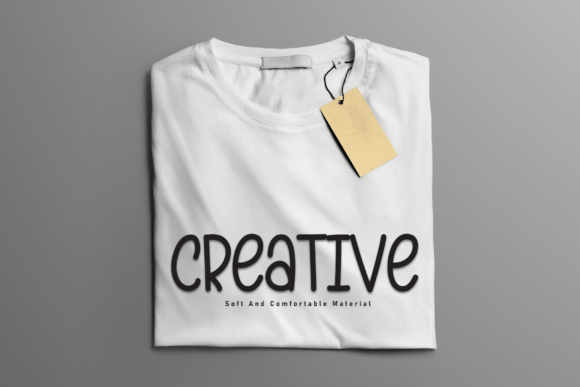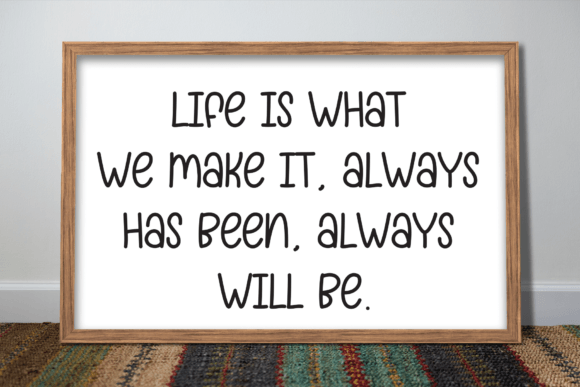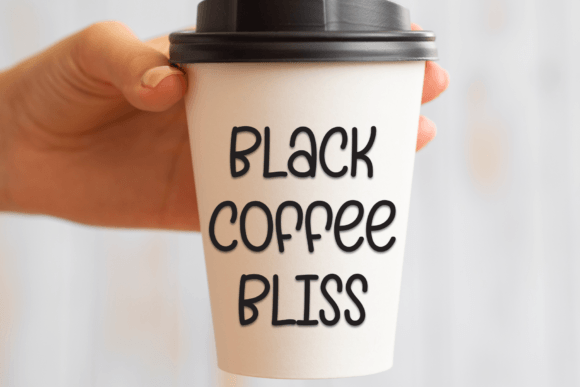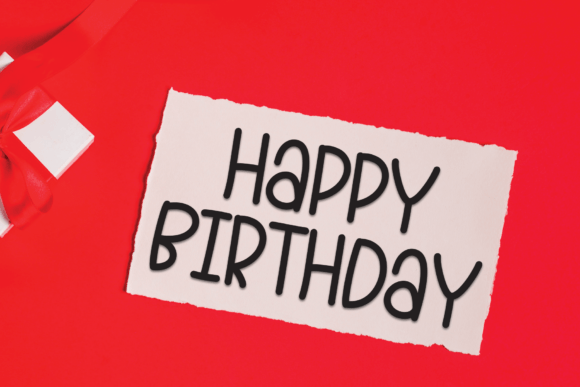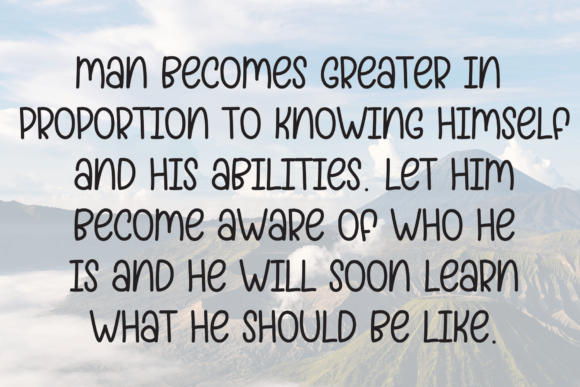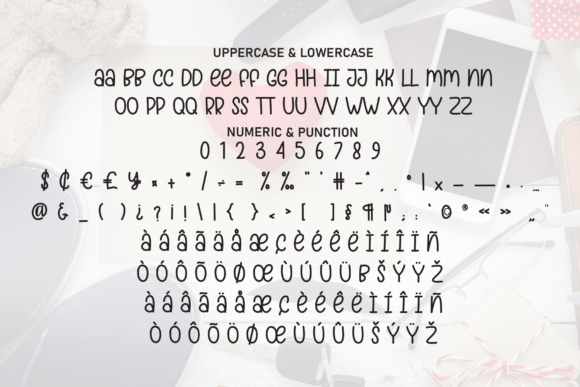
Daddy Handmade Font: Adding a Personal Touch to Your Designs
In the world of typography, fonts play a crucial role in conveying the tone and personality of a message. For designers and crafters looking to add a personal touch to their projects, the Daddy Handmade font is an excellent choice. This charming handwritten font is designed to look like it was created with care and love, making it perfect for a variety of applications.
The Characteristics of Daddy Handmade Font
Daddy Handmade is a playful, casual font that features smooth curves and a friendly feel. Its unique style is reminiscent of handwritten notes and letters, making it ideal for personal and creative projects. The font’s charming and artistic look is sure to capture the attention of your audience and leave a lasting impression.
Perfect for Personal Notes and Invitations
One of the primary uses of the Daddy Handmade font is for creating personal notes and invitations. Whether you’re planning a special event, sending a greeting card, or simply writing a love letter, this font adds a warm and inviting touch to your text. Its casual style makes it feel like a handwritten message, which is sure to be appreciated by the recipient.
Adding a Unique and Artistic Touch to Your Projects
Daddy Handmade is more than just a font – it’s a way to add a unique and artistic touch to your projects. Whether you’re a designer, crafter, or DIY enthusiast, this font can help you create something truly special. Use it for:
- Personalized stationery and greeting cards
- Invitations and party decorations
- DIY crafts and handmade goods
- Blog posts and social media graphics
Why Choose Daddy Handmade Font?
So, why choose the Daddy Handmade font for your projects? Here are just a few reasons:
- Unique and eye-catching: The Daddy Handmade font is unlike any other font out there. Its charming and artistic style is sure to capture the attention of your audience.
- Personal and friendly: This font has a warm and inviting feel that’s perfect for personal notes and invitations.
- Versatile: Daddy Handmade can be used for a wide range of projects, from DIY crafts to blog posts and social media graphics.
- Easy to read: Despite its playful style, the Daddy Handmade font is easy to read and understand, making it perfect for conveying your message.
Tips for Using Daddy Handmade Font
To get the most out of the Daddy Handmade font, here are a few tips:
- Use it sparingly: While the Daddy Handmade font is charming, it’s best used sparingly. Use it for headings, titles, or special messages to add a personal touch.
- Pair it with other fonts: To create visual interest, pair the Daddy Handmade font with other fonts that complement its style.
- Experiment with colors: The Daddy Handmade font looks great in a variety of colors. Experiment with different colors to find the one that works best for your project.
In conclusion, the Daddy Handmade font is a charming and artistic font that’s perfect for adding a personal touch to your projects. Its playful, casual style features smooth curves and a friendly feel, making it ideal for personal notes, invitations, and DIY crafts. With its unique and eye-catching style, the Daddy Handmade font is sure to capture the attention of your audience and leave a lasting impression.
Get Creative with Daddy Handmade Font